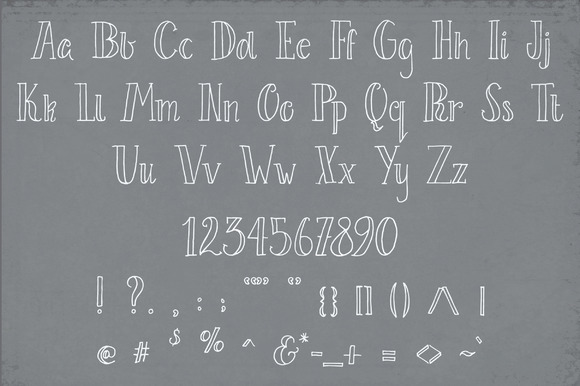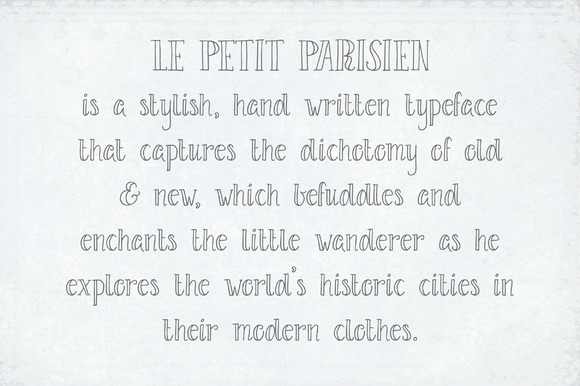
Le Petit Parisien Light Font
db-ku.com - Script & Handwritten -- Le Petit Parisien Light is a light cute hand writing font that is inspired by the city of love historic feel.